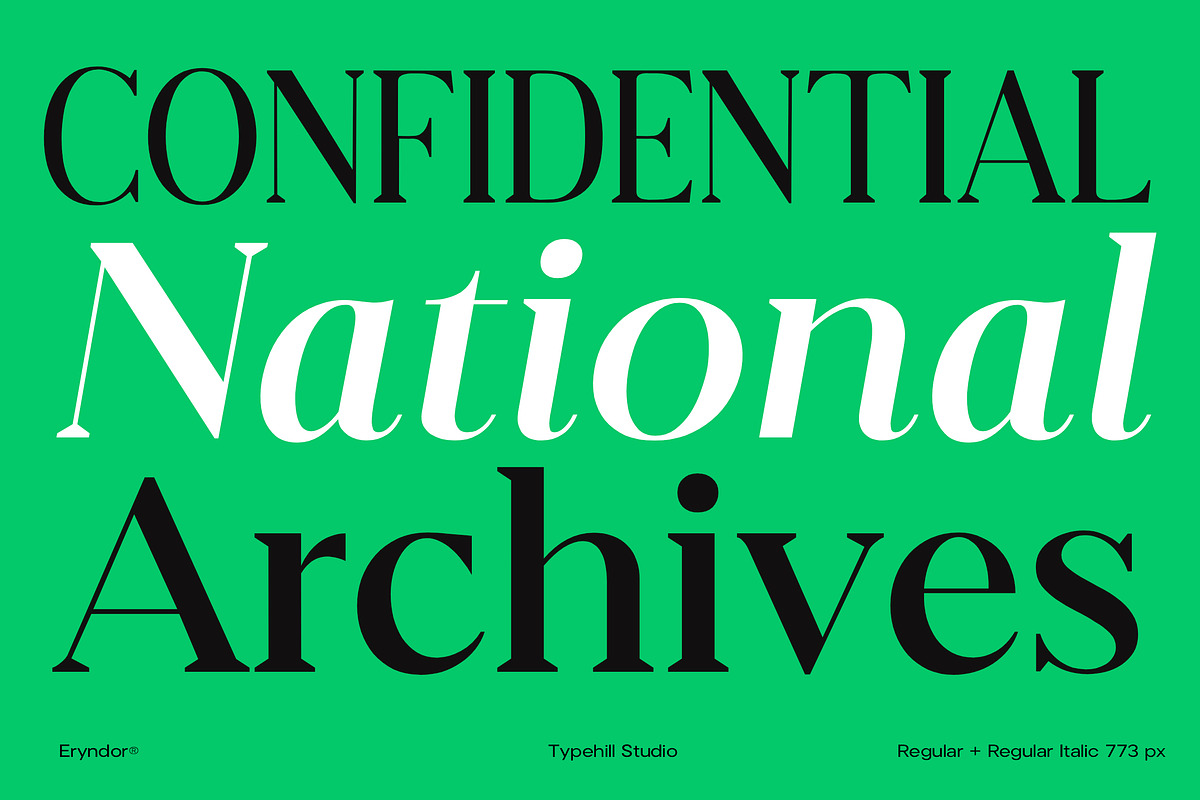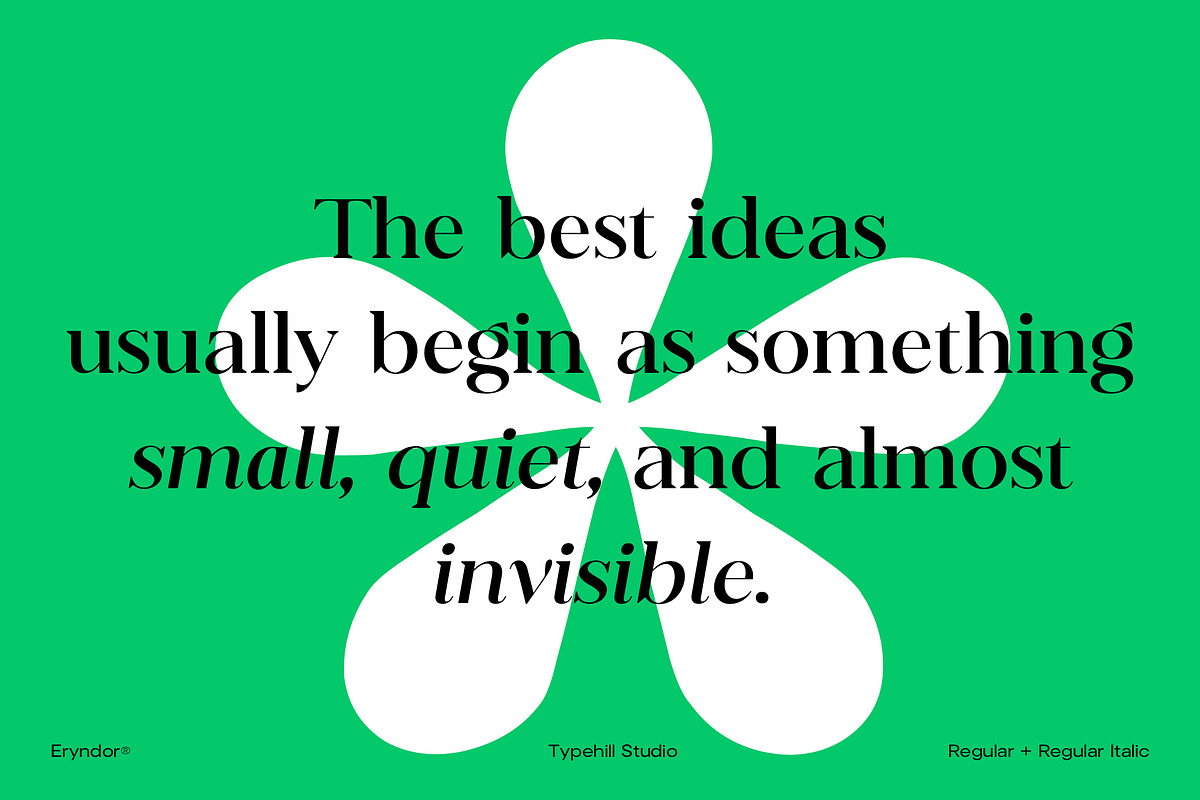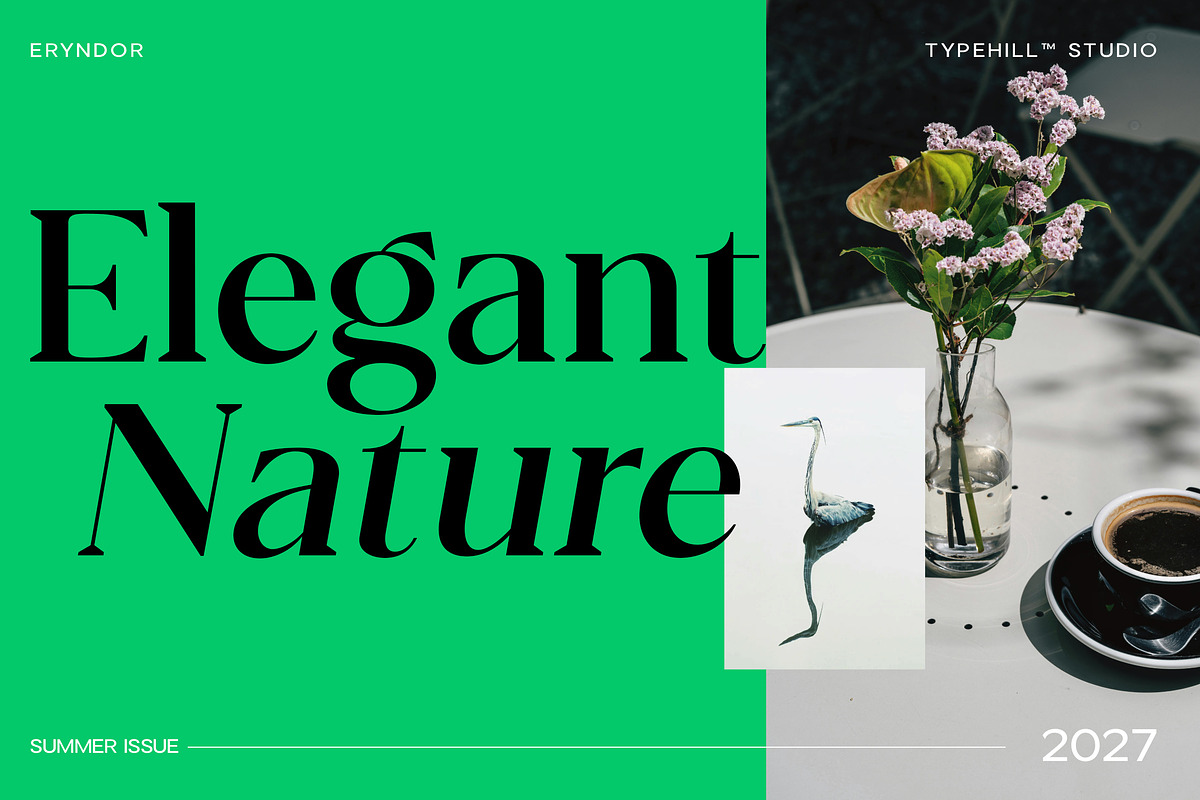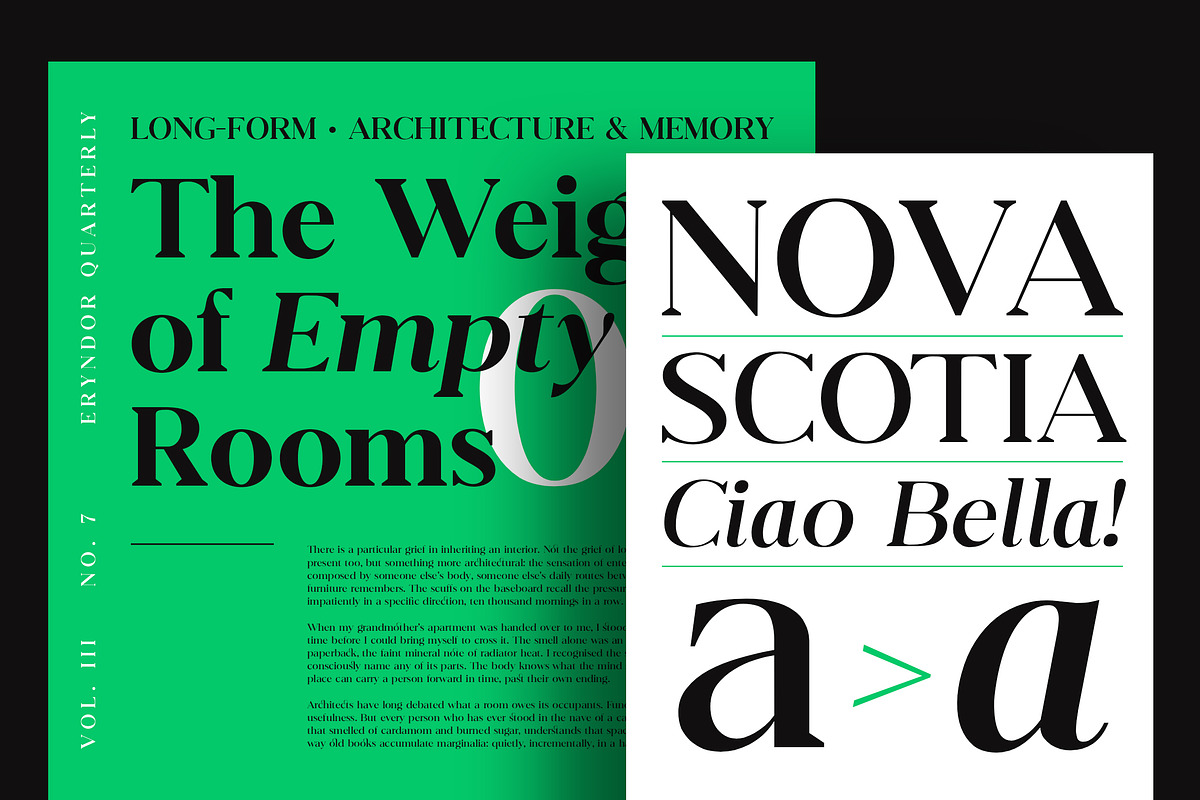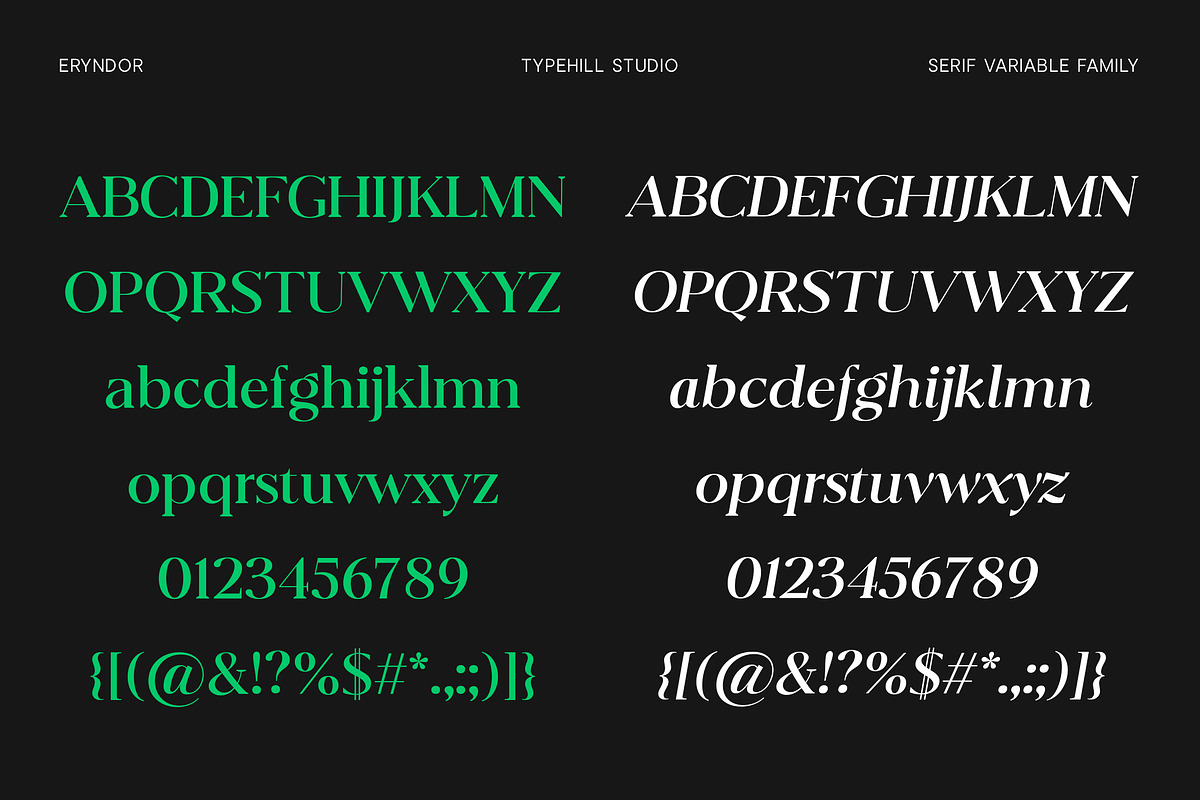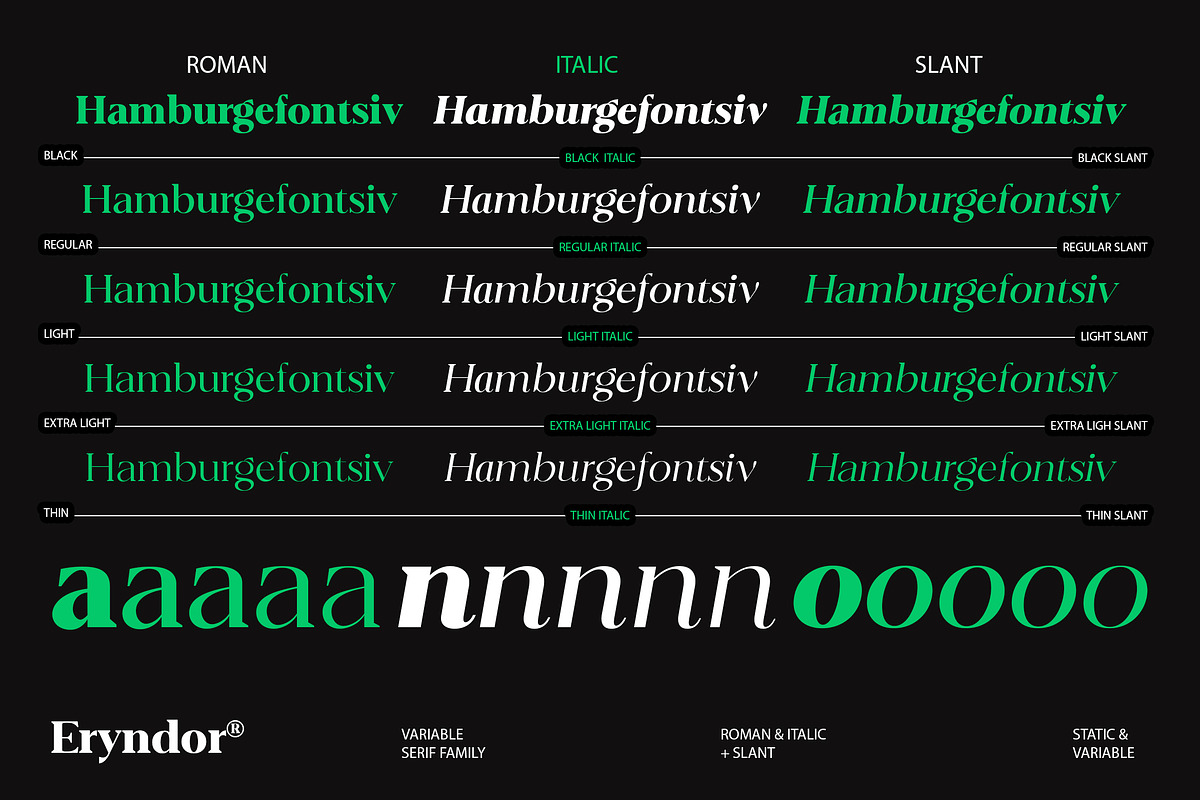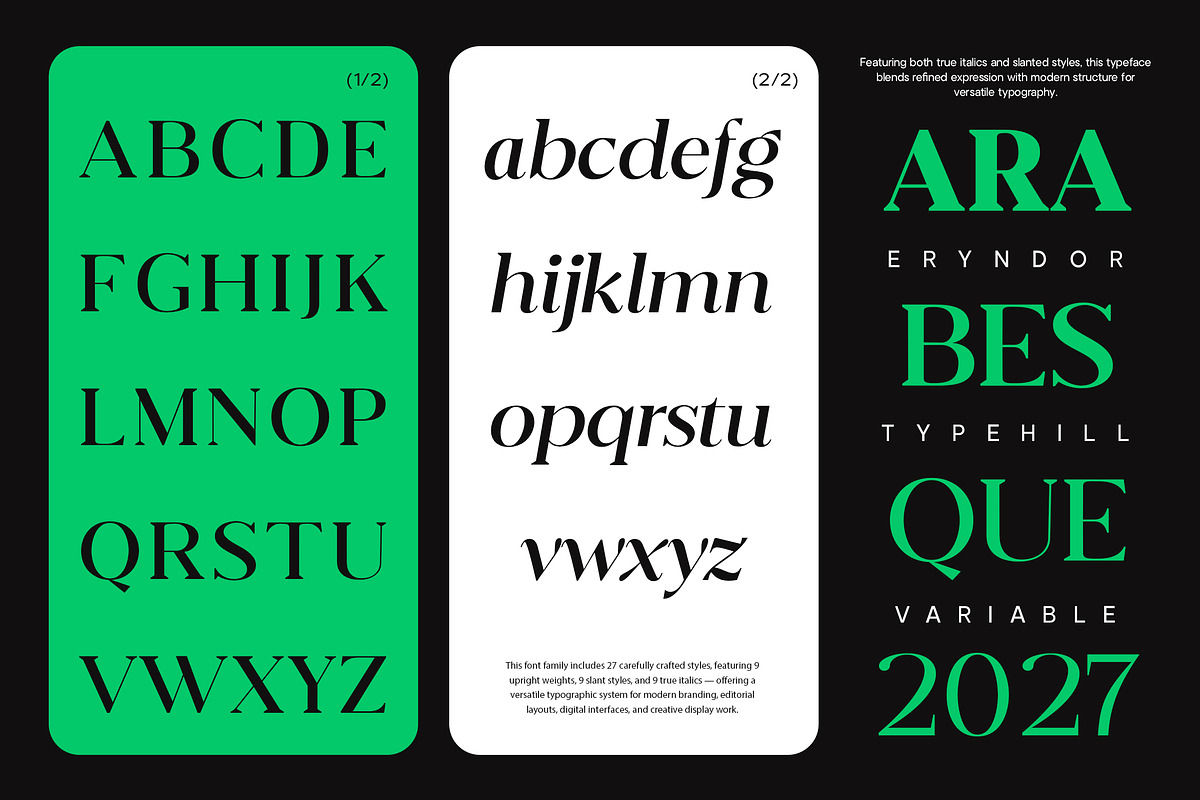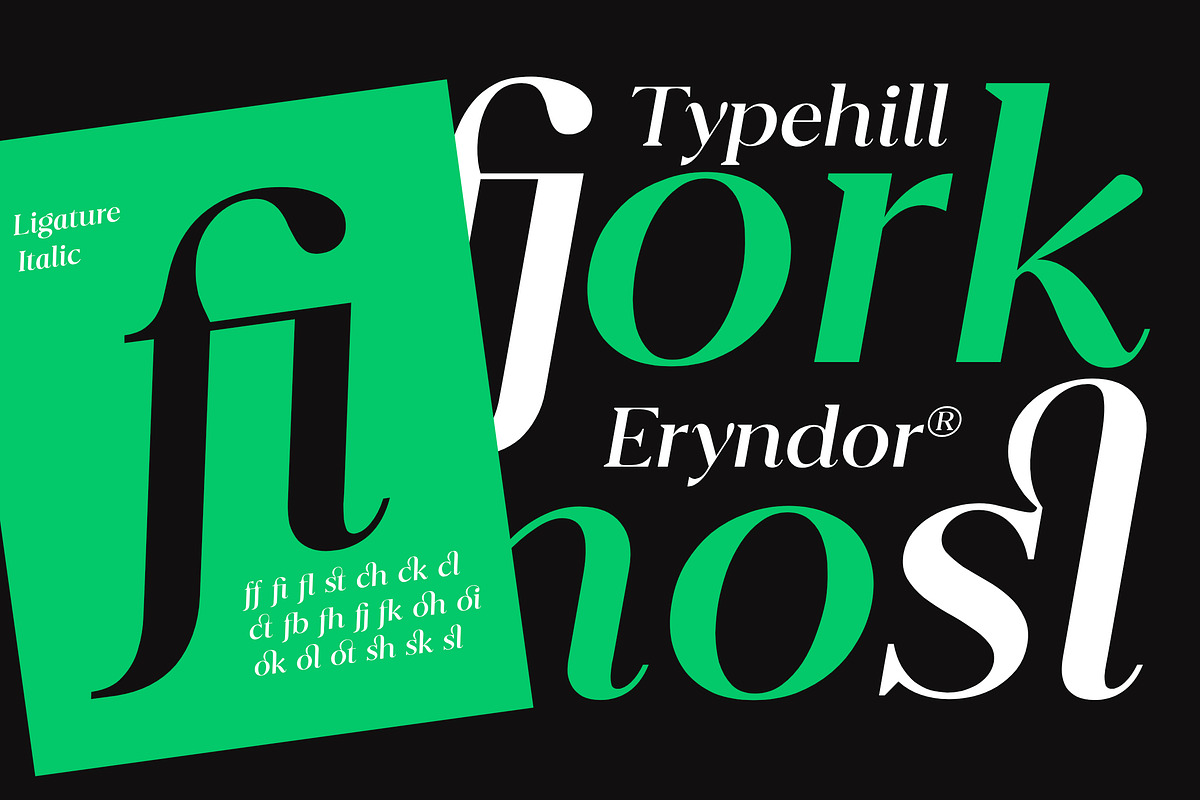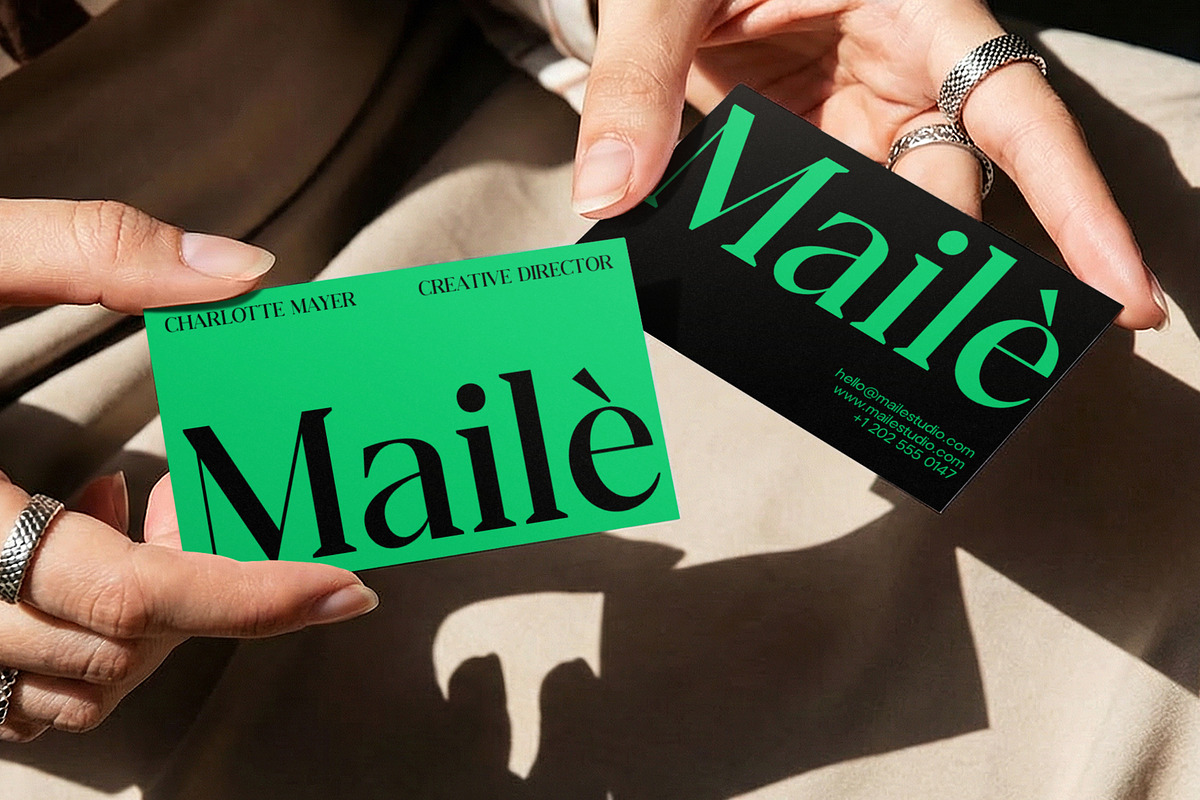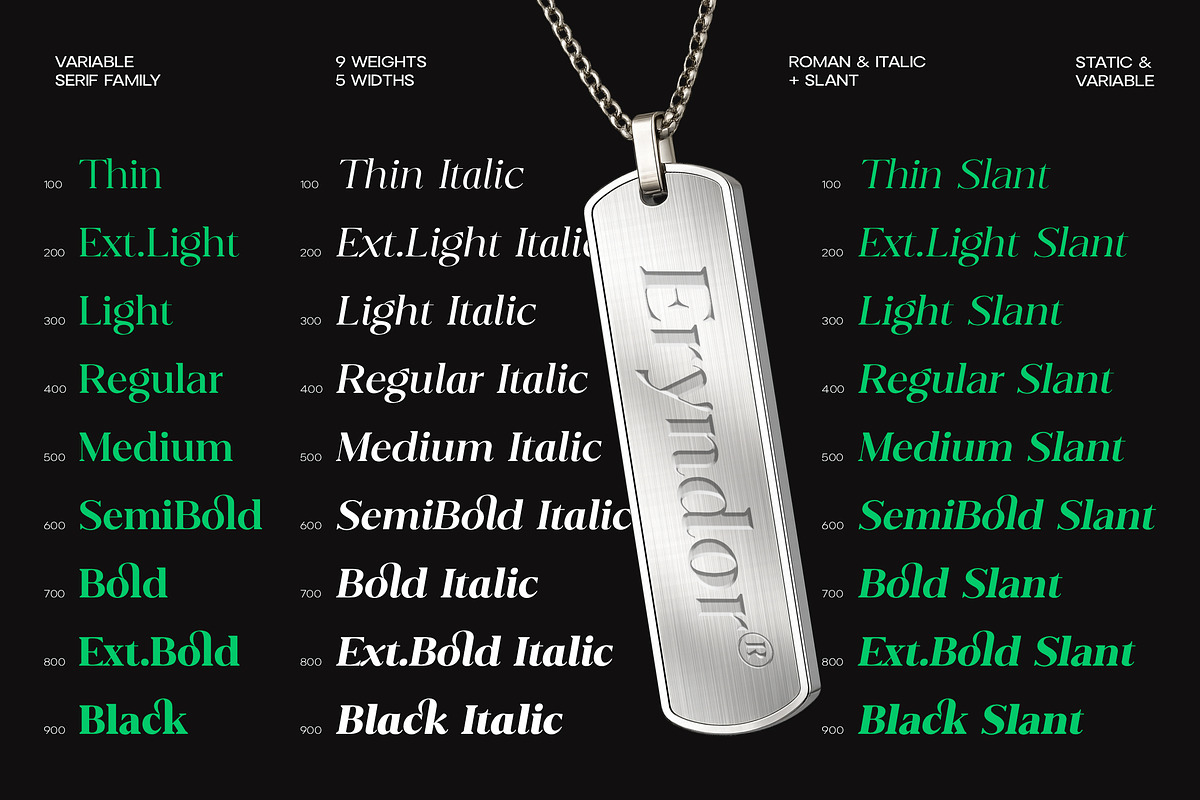
Eryndor
Eryndor is a modern variable serif family that blends refined elegance with strong contemporary character. Designed with precision and versatility in mind, Eryndor delivers sophisticated letterforms, smooth curves, and striking contrast that make it ideal for luxury branding, editorial layouts, fashion campaigns, premium packaging, and cinematic typography.
Featuring 27 carefully crafted styles, including Roman, Italic, and Slant variations, Eryndor offers exceptional flexibility for both digital and print design. From delicate thin weights to commanding bold styles, every character is engineered to maintain clarity, rhythm, and visual harmony across a wide range of applications.
Its variable system allows seamless weight transitions and dynamic typographic control, empowering designers to create expressive and highly polished compositions with ease. Whether used for elegant headlines, stylish logos, modern magazines, or upscale visual identities, Eryndor brings a timeless serif aesthetic into a futuristic design direction.
Elegant yet powerful, classic yet experimental — Eryndor is built to elevate modern typography with confidence and style.